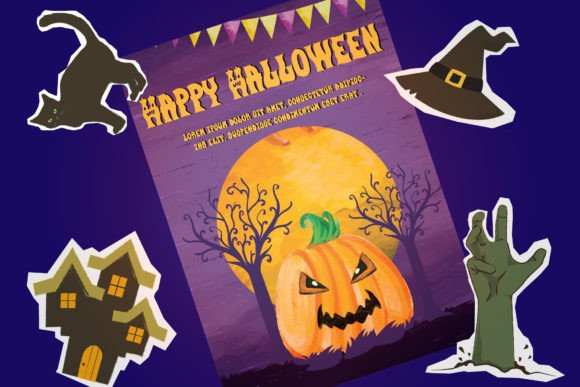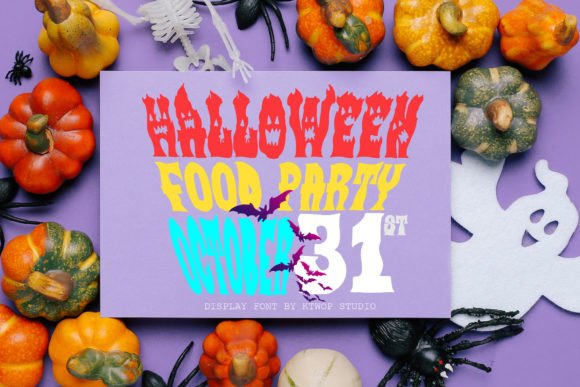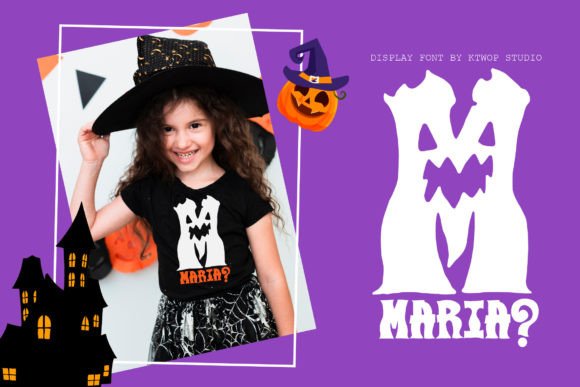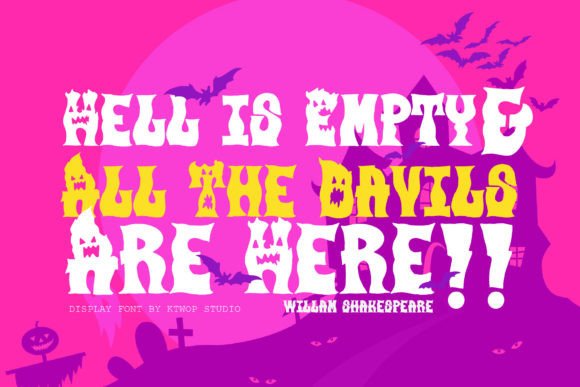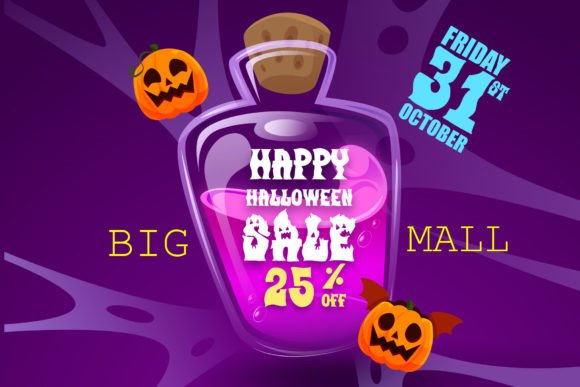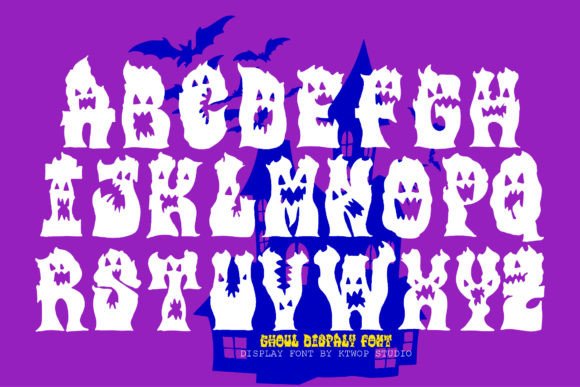
Ghoul Font: The Perfect Spooky Addition to Your Design Projects
As the spookiest time of the year approaches, designers and crafters are on the lookout for the perfect font to add a touch of horror to their projects. Look no further than the Ghoul Font, a scary, weird, and creepy typeface that’s sure to send shivers down the spines of your audience. In this article, we’ll dive into the world of Ghoul Font, exploring its features, uses, and benefits, as well as provide tips on how to make the most of this eerie font.
What is Ghoul Font?
Ghoul Font is a unique and terrifying typeface designed to evoke the spirit of Halloween. With its irregular shapes, jagged lines, and creepy texture, this font is the perfect addition to any design project that requires a spooky touch. Whether you’re working on a Halloween-themed invitation, a horror movie poster, or a creepy craft project, Ghoul Font is sure to add a level of eeriness that will leave your audience on the edge of their seats.
Features of Ghoul Font
So, what makes Ghoul Font so special? Here are just a few of its standout features:
- Creepy texture: Ghoul Font features a distressed texture that gives it a worn, aged look. This texture adds to the overall spookiness of the font, making it perfect for Halloween-themed projects.
- Irregular shapes: The letters in Ghoul Font are irregularly shaped, with jagged lines and uneven curves. This gives the font a sense of unease and uncertainty, making it perfect for horror-themed projects.
- Unique lettering: Each letter in Ghoul Font is uniquely designed, with its own set of quirks and characteristics. This makes the font feel more hand-crafted and less like a standard typeface.
Uses for Ghoul Font
Ghoul Font is a versatile typeface that can be used in a variety of design projects, including:
- Halloween invitations: Add a touch of spookiness to your Halloween invitations with Ghoul Font. Perfect for party invites, trick-or-treat invitations, or haunted house announcements.
- Horror movie posters: Create a terrifying movie poster with Ghoul Font. The font’s creepy texture and irregular shapes will add to the overall sense of unease and fear.
- Craft projects: Ghoul Font is perfect for craft projects, such as making spooky signs, creepy cards, or haunted decorations.
- Web design: Use Ghoul Font to add a touch of horror to your website design. Perfect for Halloween-themed websites, horror blogs, or creepy online portfolios.
Benefits of Using Ghoul Font
So, why should you use Ghoul Font in your design projects? Here are just a few benefits:
- Instant spookiness: Ghoul Font adds an instant touch of spookiness to any design project. No need to spend hours trying to create a creepy effect – Ghoul Font does it all for you.
- Unique look: Ghoul Font has a unique look that’s sure to stand out from the crowd. Your design projects will be instantly recognizable as Halloween-themed or horror-inspired.
Tips for Using Ghoul Font
Here are a few tips for using Ghoul Font in your design projects:
- Use it sparingly: While Ghoul Font is creepy and fun, it can be overwhelming if used too much. Use it sparingly to add a touch of horror to your design projects.
- Experiment with colors: Ghoul Font looks great in a variety of colors, from bold and bright to dark and muted. Experiment with different colors to find the perfect look for your design project.
- Combine with other fonts: Ghoul Font can be combined with other fonts to create a unique look. Try pairing it with a clean, sans-serif font for a striking contrast.
Ghoul Font is the perfect addition to any design project that requires a touch of horror. With its creepy texture, irregular shapes, and unique lettering, this font is sure to send shivers down the spines of your audience. Whether you’re working on a Halloween-themed invitation, a horror movie poster, or a creepy craft project, Ghoul Font is the perfect choice. So why wait? Download Ghoul Font today and add a touch of spookiness to your design projects!